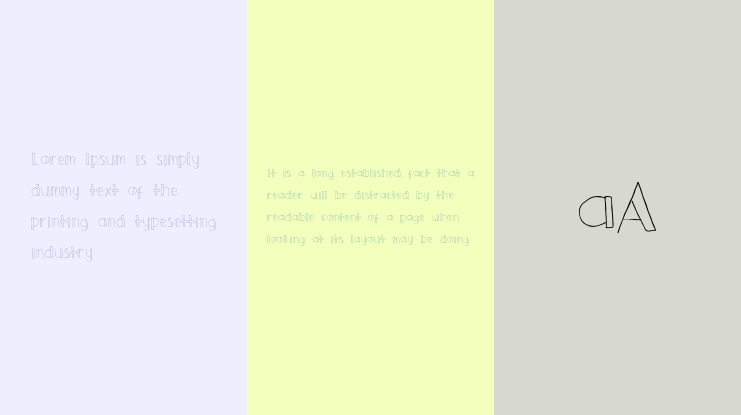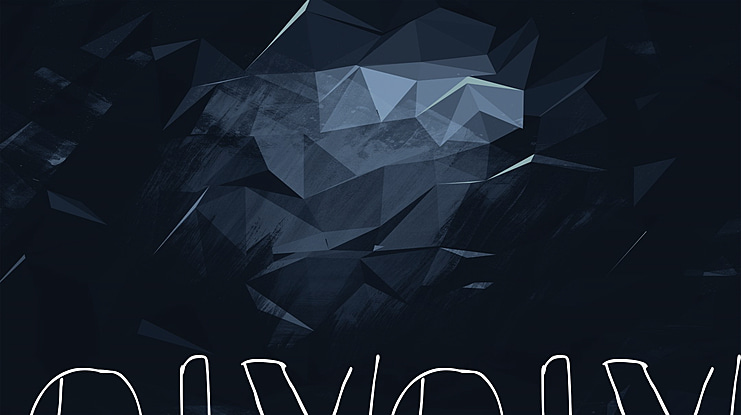
QIWQIW Font
Qiwqiw is a simple and thin lettered handwritten font. Add it confidently to your informal or casual projects, and you won’t be disappointed.